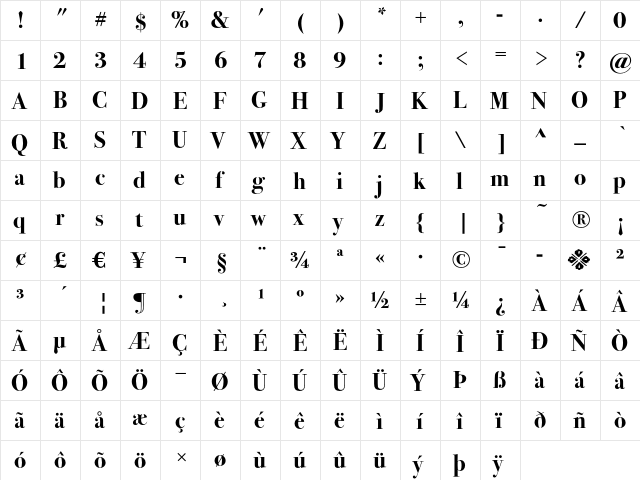
Bodoni Seventytwo ITC Bold
Design Context for Bodoni Seventytwo ITC Typeface
Bodoni Seventytwo ITC is a composed and adaptable typeface that performs quietly and consistently across a wide range of design contexts. Its bold stroke weight gives it real presence on the page.